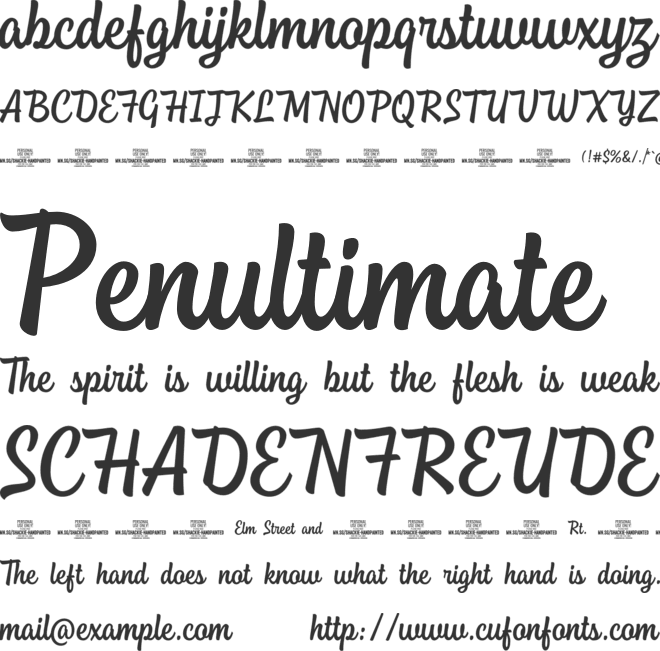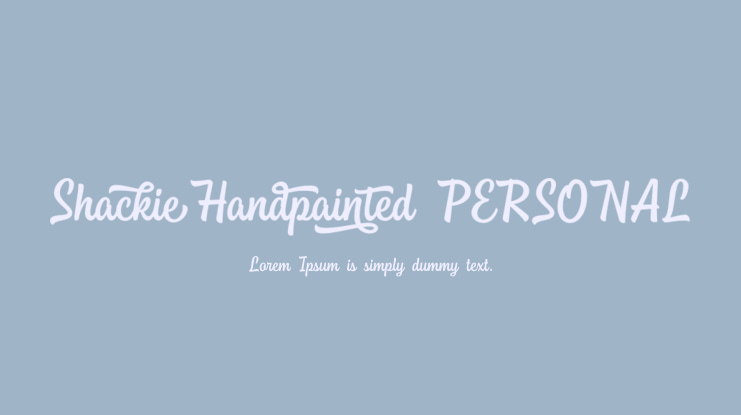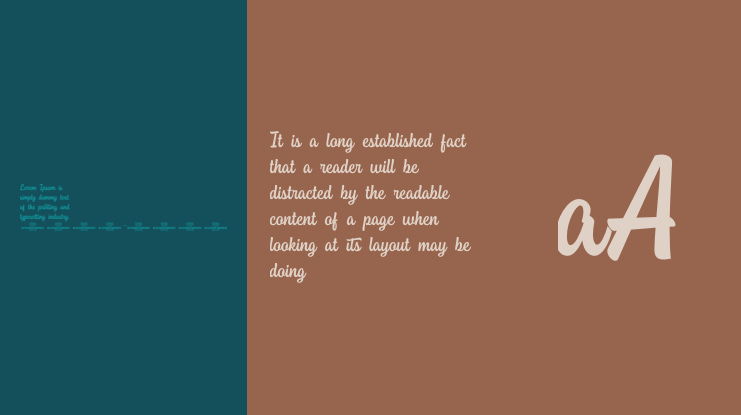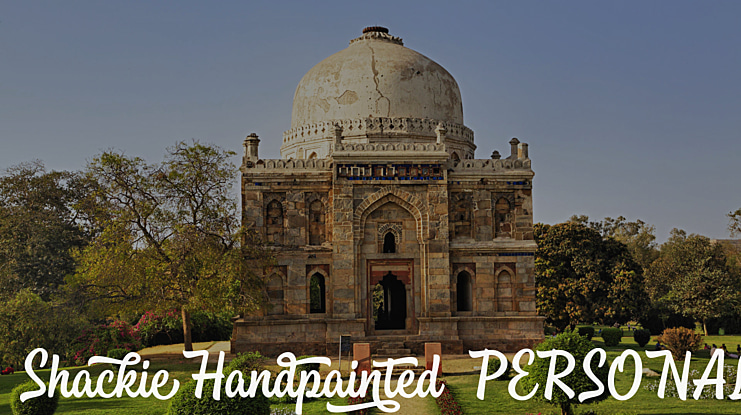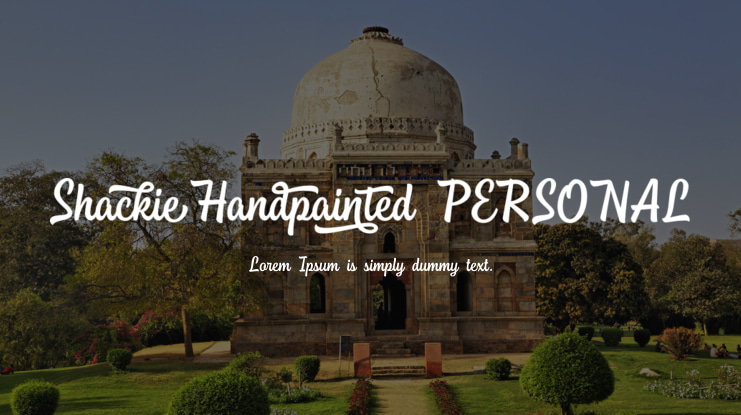
Shackie Handpainted PERSONAL Font
Shackie Handpainted is a striking calligraphy typeface, embodying the charm and flair of a hand-drawn script. The font's dynamic brushstrokes lend it the authentic feel of a sign painter's masterpiece, making it an excellent choice for projects that call for custom lettering and a personal touch.